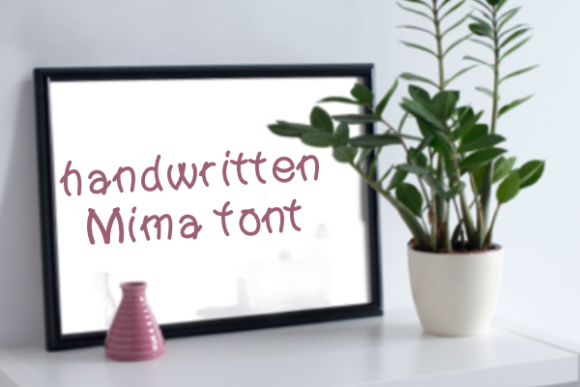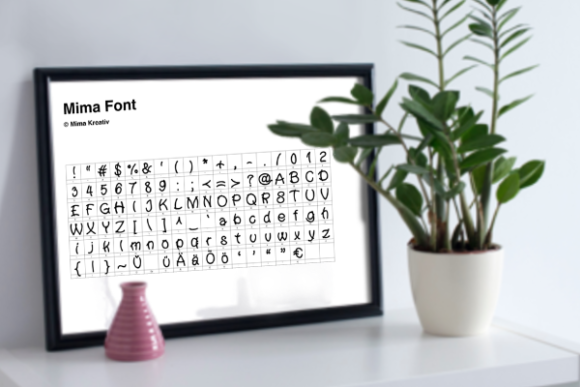
Introduction to Mima Font
Mima is a cute, simple and clean handwritten font, that can be used for all chalkboard quotes or teaching material.
Its authentic look will add a personal and realistic feel to your designs .
Key Features of Mima Font